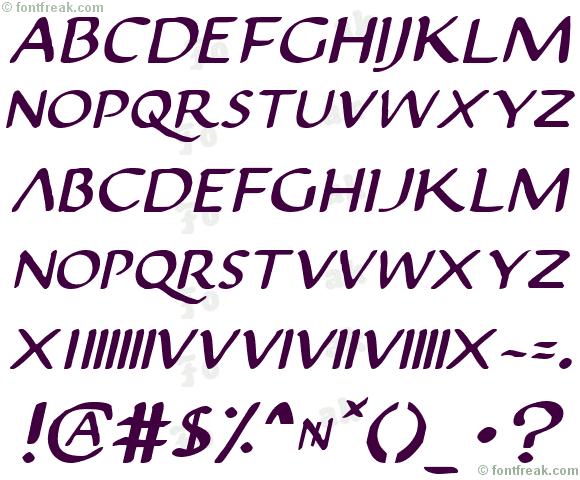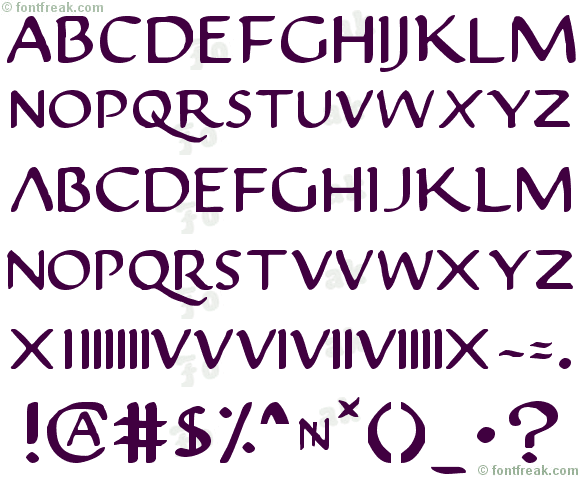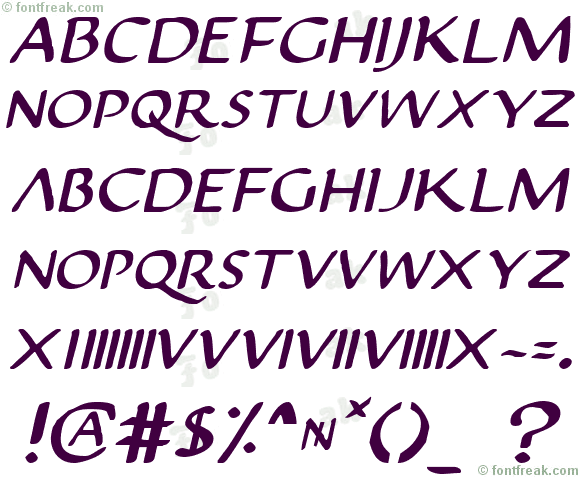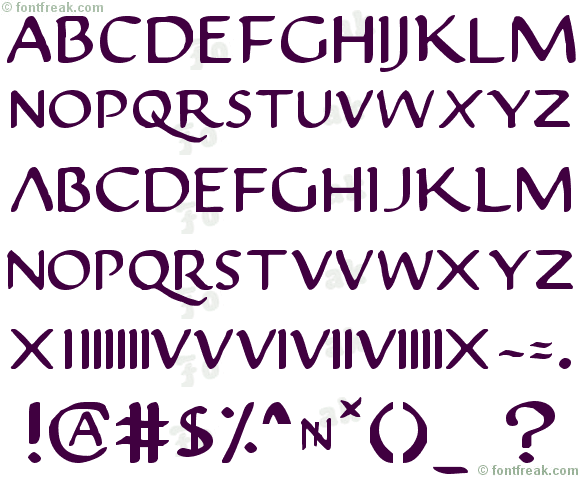
Justinian Italic
Justinian
Justinian 2
Justinian 2 Italic
The Justinian font by Iconian Fonts is a distinctive serif typeface that exudes a classical elegance, making it a standout choice for various design applications. Released in 2003, this freeware font features a moderate stroke weight, providing a balanced contrast that enhances readability while retaining a unique aesthetic. The characters are well-spaced, creating a harmonious flow that is both visually appealing and functional. Decorative elements, such as the subtle serifs, add a touch of sophistication without overwhelming the overall design.
Justinian is particularly well-suited for a range of specific use cases. Its elegant style makes it an excellent choice for wedding invitations, where the timeless appearance can convey romance and celebration. Additionally, it works beautifully on movie posters, lending a sense of drama and importance to the title and other text elements. Restaurant menus can also benefit from Justinian's refined look, as it helps create an upscale atmosphere that complements fine dining experiences. Graphic designers and content creators will find this font ideal for branding projects that require a touch of class, as well as for digital and print publications seeking to capture an audience’s attention.
The target audience for the Justinian font includes graphic designers, small business owners, and content creators who appreciate the balance of elegance and practicality. This font stands out not only for its aesthetic appeal but also for its versatility across various design mediums. Whether you're crafting a memorable invitation or a striking advertisement, the Justinian font free download allows you to elevate your projects with a sophisticated touch that speaks to both tradition and modernity.